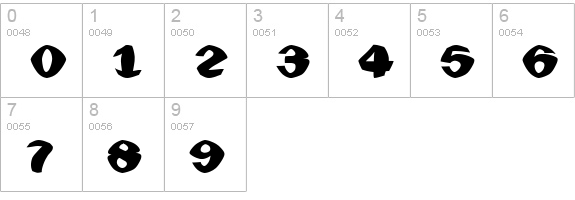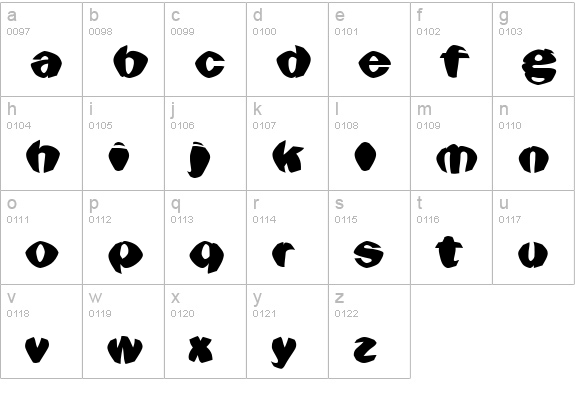
Goldfish Font Details
Introducing Goldfish font, a delightful and whimsical typeface that adds a touch of playfulness to any project. With its smooth curves and friendly appearance, Goldfish font is perfect for a wide range of designs, from invitations to branding to children's books. The best part? Goldfish font is completely free to download at FontsMarket.com. That's right, you can add this charming typeface to your collection at no cost at all. So why wait? Give your designs a splash of personality with Goldfish font today!